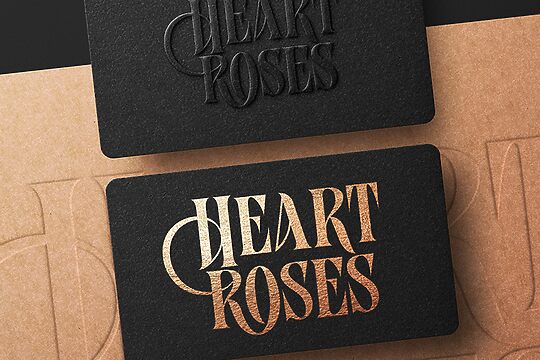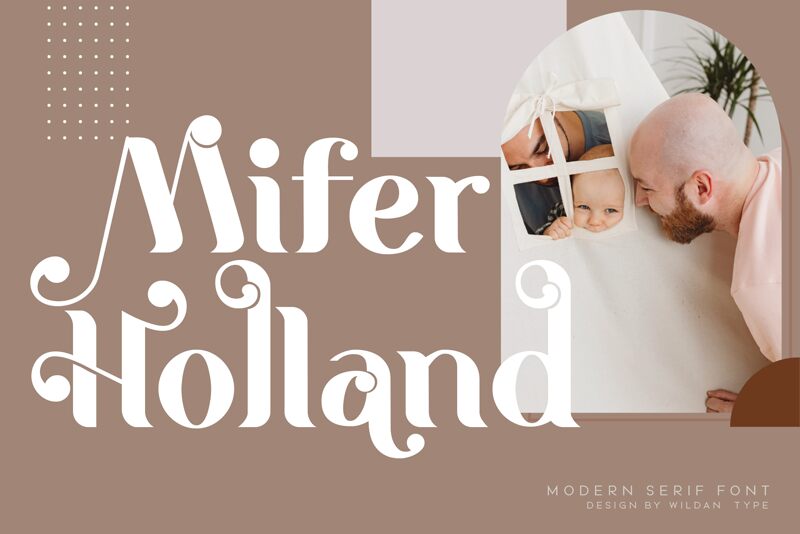
Mifer Holland font family is a free serif font collection designed by Wildan Type, characterized by its classic elegance and decorative flair. With four distinct font styles, this font family combines a modern serif with sophisticated and graceful touches to create a polished aesthetic. The stylish curves and refined design of Mifer Holland bring a contemporary twist to a traditional look, making it suitable for formal yet approachable applications.
Use this font in designing branding and identity. The typeface shines in logotypes, slogans, headlines, headers, and posters. Use it in invitation cards, wedding stationery, certificates, magazines, menus, and more.